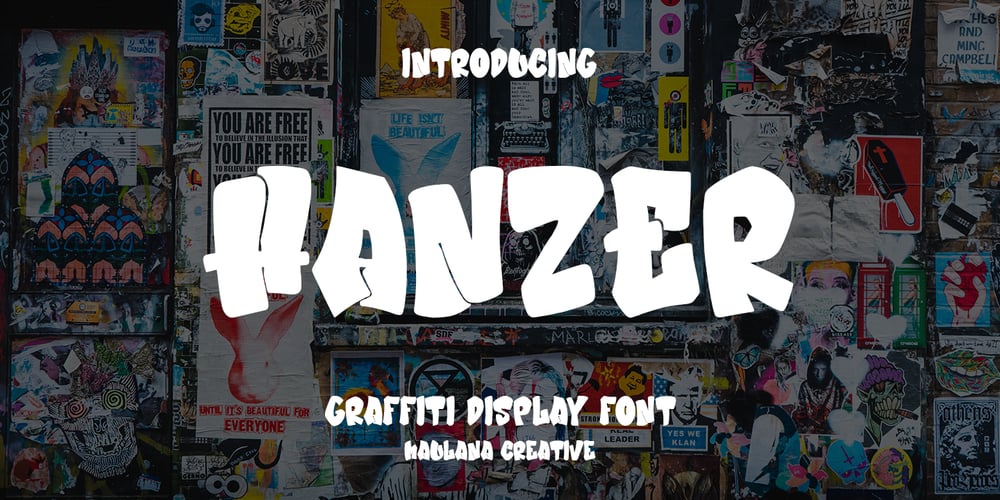
Hanzer Graffiti Display Font Font Family was designed by Gilang Maulana and published by Maulana Creative. Hanzer Graffiti Display Font contains 1 styles and family package options. Hanzer graffiti display font. Bold stroke, fun character with a bit of ligatures and alternates. To give you an extra creative work. Hanzer font support multilingual more than 100+ language. This font is good for logo design, Social media, Movie Titles, Books Titles, a short text even a long text letter and good for your secondary text font with script or serif. Make a stunning work with Hanzer graffiti display font.Cheers,Maulana Creative